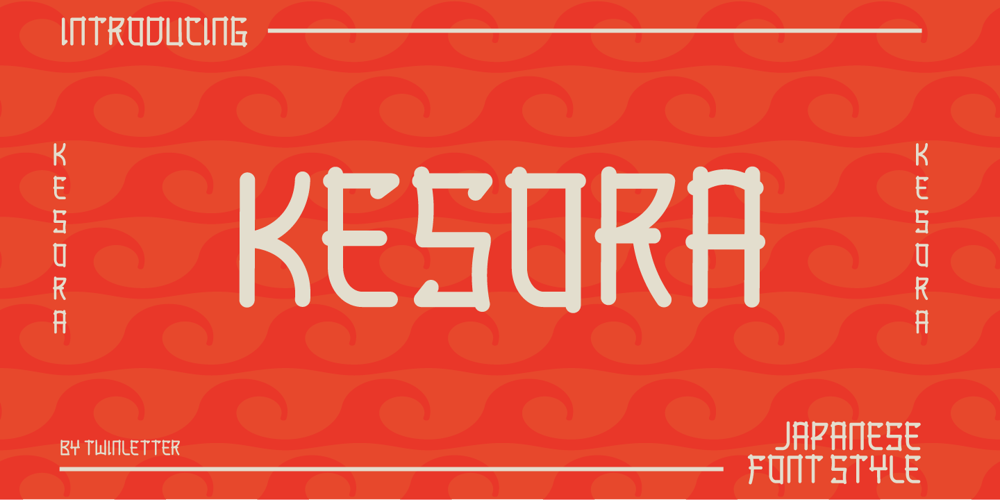
Kesora Faux Font Family was designed by Rozikan and published by Twinletter. Kesora Faux contains 1 styles and family package options. KESORA is a Japanese-style font that we carefully crafted to give your composition the proper look.This font is really versatile, so you may use it for a wide range of projects.Your project will always appear special to your audience if it has the proper composition, beautiful appearance, and unique shape.Logotypes, food banners, branding, brochure, posters, movie titles, book titles, quotes, and more may all benefit from this font.Of course, using this font in your various design projects will make them excellent and outstanding; many viewers are drawn to the striking and unusual graphic display.Start utilizing this typeface in your projects to make them stand out.